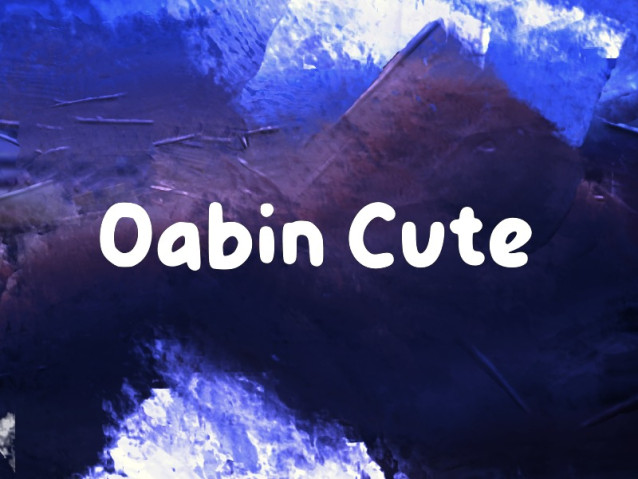
Oabin Cute Font
Oabin Cute Font, suitable for any design needs : logo, branding, modern advertising design, logos, poster quote, book / cover Title, editorial design, website / blog, card, t-shirts.